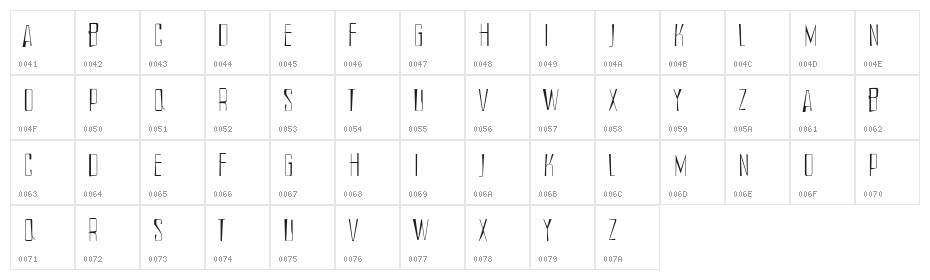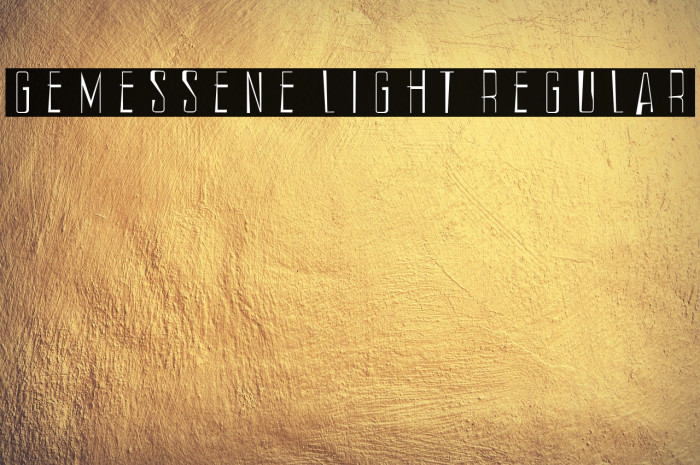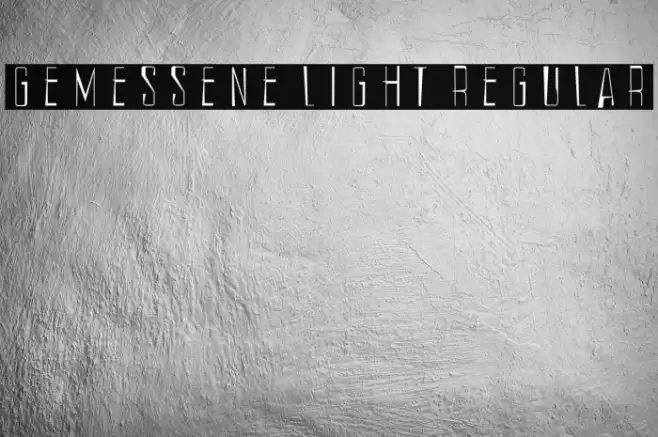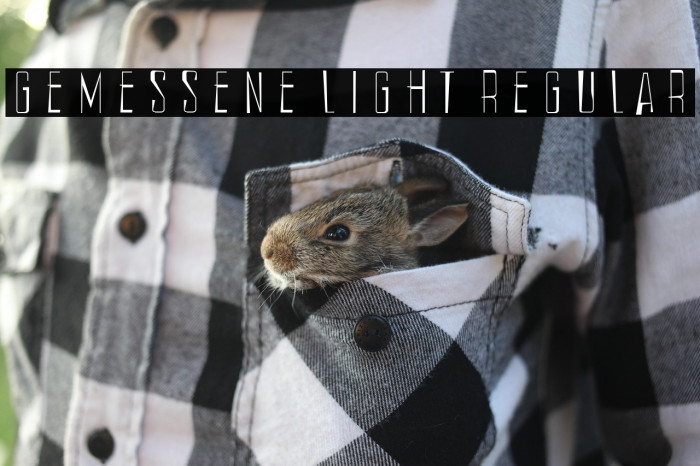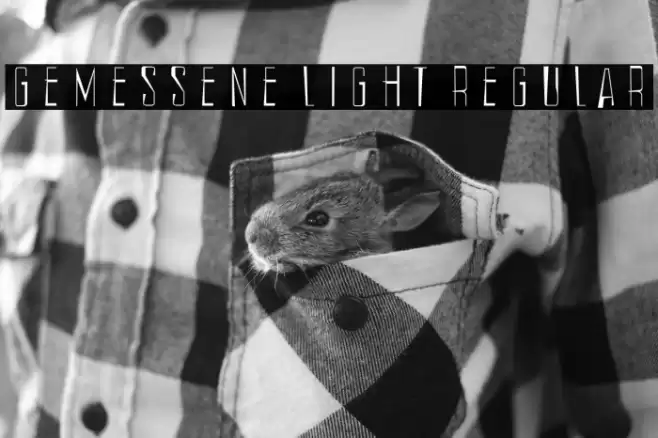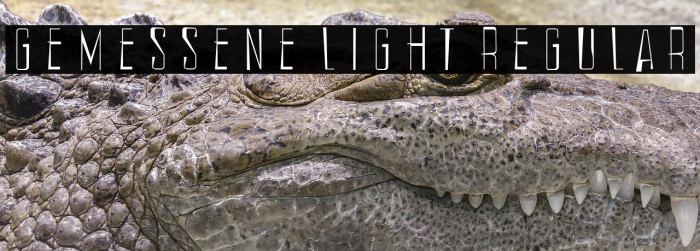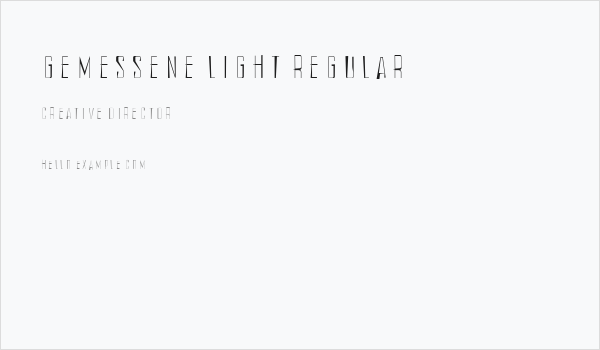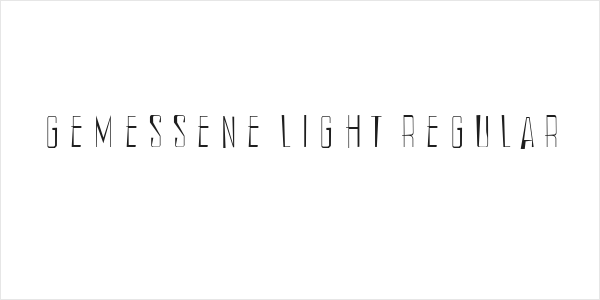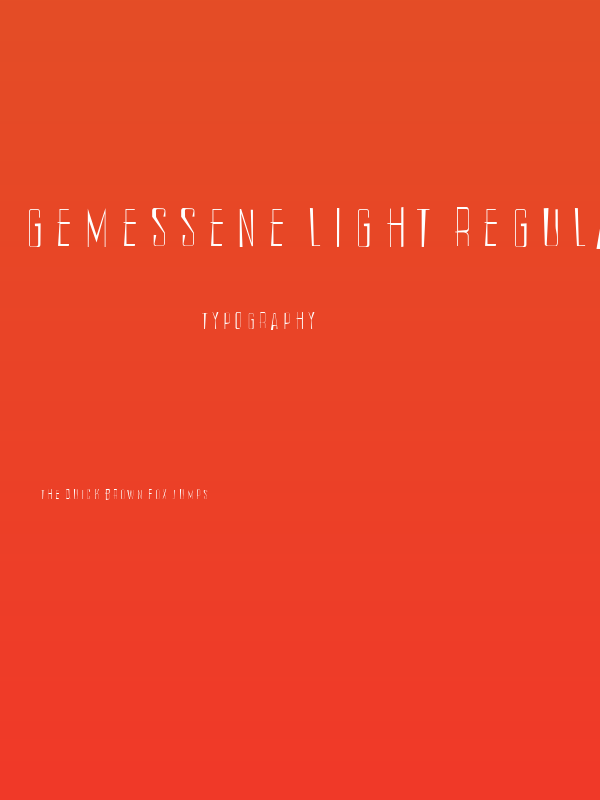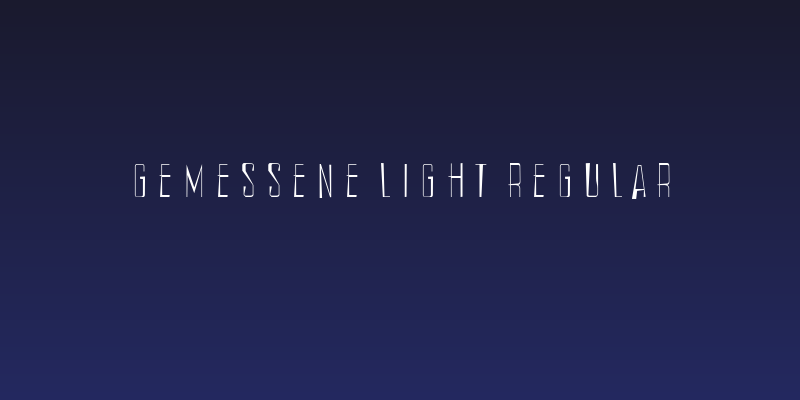
Gemessene Light Regular Font
Gemessene Light Regular Description
This font features a modern and minimalist design with a distinct geometric influence. Each character is crafted with a unique blend of sharp angles and smooth curves, creating a dynamic and engaging appearance. The uppercase letters are tall and slender, while the lowercase letters maintain a consistent height, providing a harmonious balance. The numerals are clear and legible, designed to complement the overall style. Special characters are thoughtfully integrated, maintaining the font's cohesive look. The font's clean lines and contemporary aesthetic make it suitable for a variety of design projects.